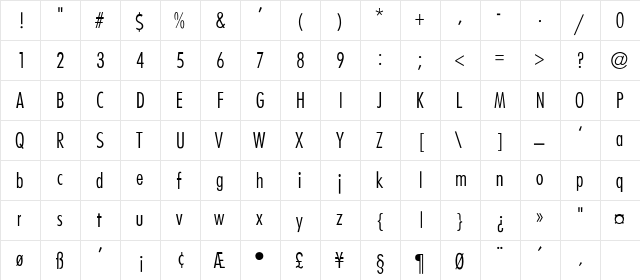
Futura-CondensedLight-Thin Regular Font Preview
Design Context for Futura-CondensedLight-Thin Typeface
Futura-CondensedLight-Thin has a distinctly futuristic character, with geometric precision and clean angles that feel at home in technology, gaming, and sci-fi contexts. Its slender proportions lend an understated elegance to any composition. Its narrow stance lets it pack a punch even in space-constrained designs.
Pro Tip: Use Futura-CondensedLight-Thin in combination with a neutral sans for body text. Let it define the brand voice in headlines while keeping reading comfortable elsewhere.